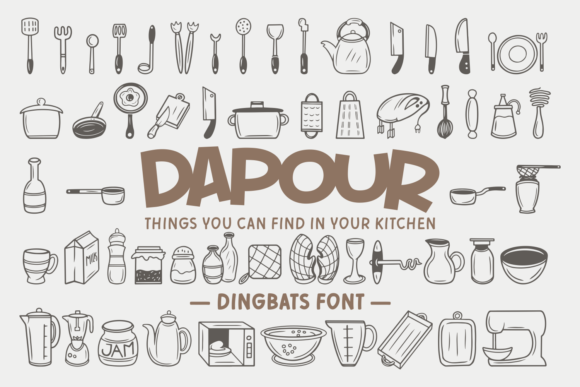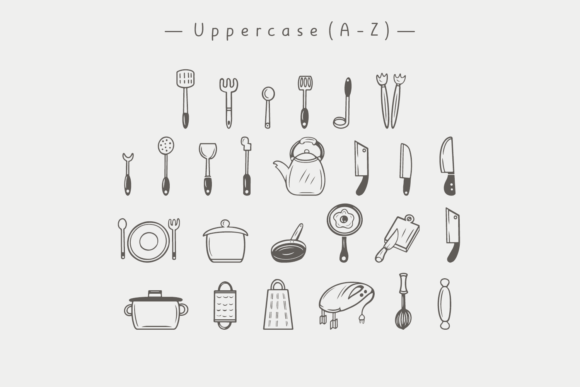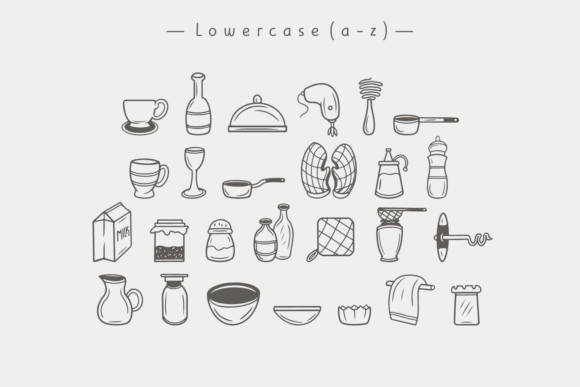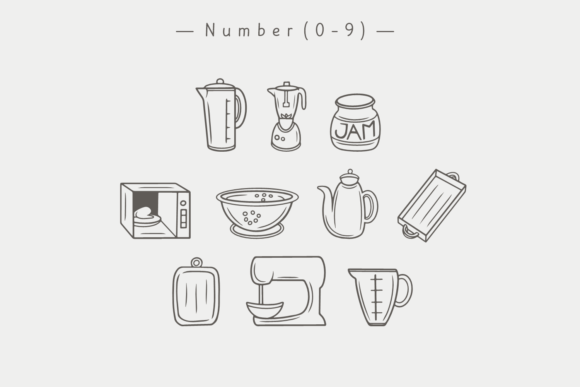
Dapour Font
About Dapour Font
“Dapour” is a charming and useful dingbats font with a kitchen theme. This font is perfect for adding a touch of warmth and coziness to your projects. With its collection of kitchen-related icons, “Dapour” allows you to incorporate elements such as utensils, cookware, food items, and culinary symbols into your designs.
Whether you’re working on recipe cards, cooking blogs, restaurant menus, or any project related to food and cooking, “Dapour” will bring a delightful and inviting feel to your designs. The cute and homey icons in this font can be used as decorative elements, borders, or even as standalone illustrations to enhance your visual compositions.
The versatility of “Dapour” extends beyond kitchen-themed projects. You can also use this font to add a touch of whimsy and playfulness to various design contexts. It works well in crafting, digital design, packaging, and even greeting card making. Let your imagination run wild and explore the endless possibilities this font offers.
By adding “Dapour” to your font library, you’ll have a delightful and versatile tool to infuse your designs with a cozy and inviting atmosphere. Embrace the charm of the kitchen and let “Dapour” bring your culinary-themed projects to life. Get ready to create visually appealing and lively designs that capture the heart of home cooking and evoke a sense of comfort and joy.